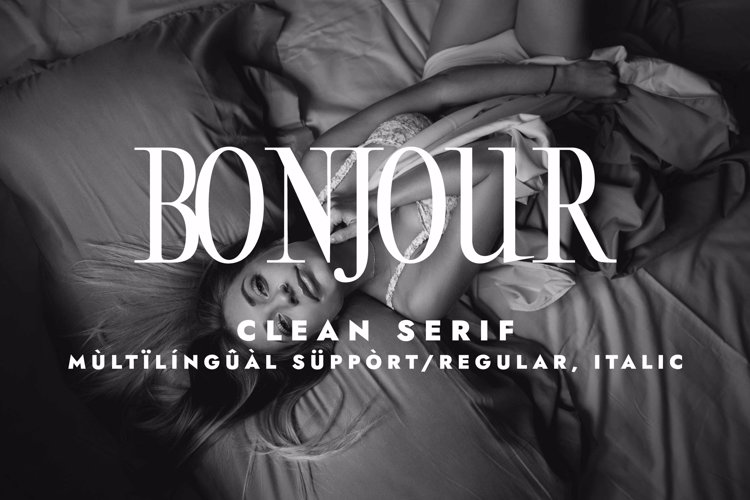
BONJOUR Font
π¨ Font Name: Bonjour by Minimalist Art Studio
π¨ Font Description: Bonjour is a clean serif with multilingual supportβideal for editorial elegance, fashion branding, and intimate packaging.
β Complete Latin set + multilingual diacritics
β Alternates, stylistic sets & ligatures
β Numbers, small caps, and extended punctuation
β Bonus italics and family styles